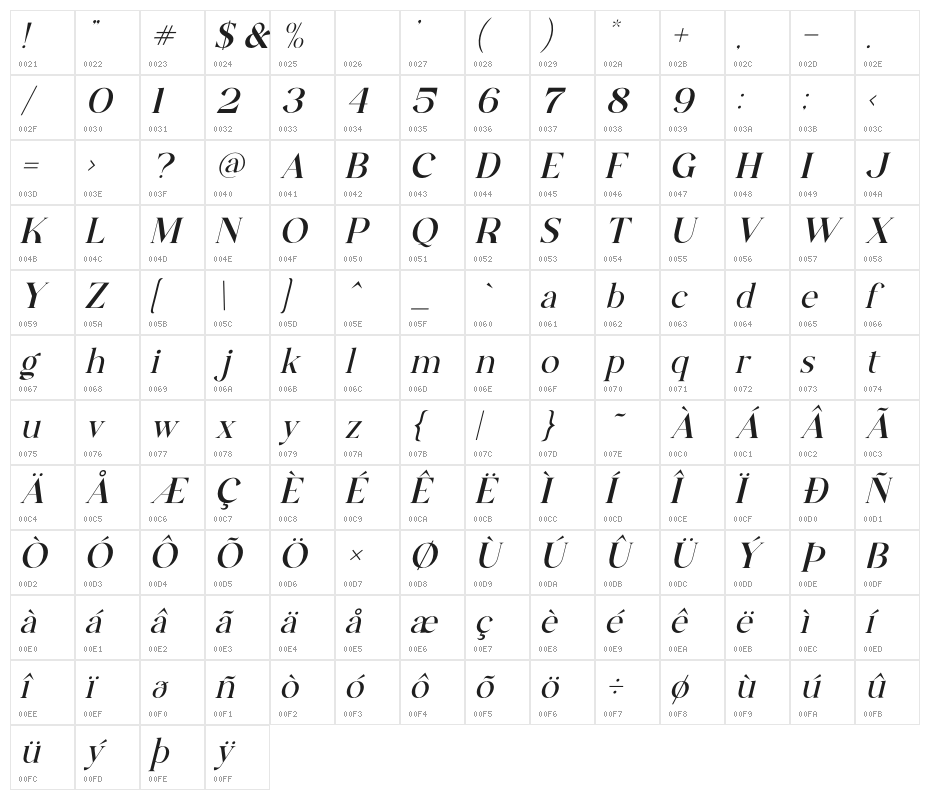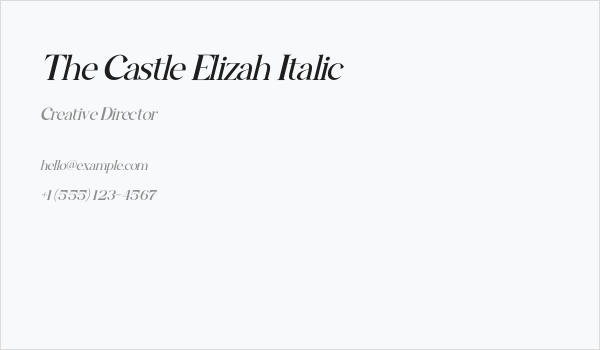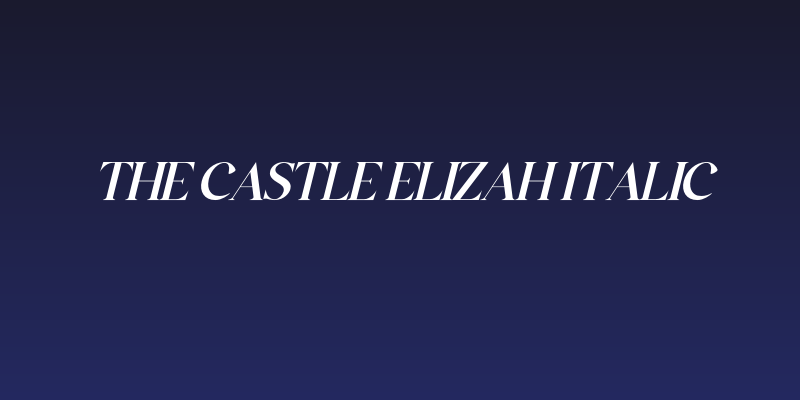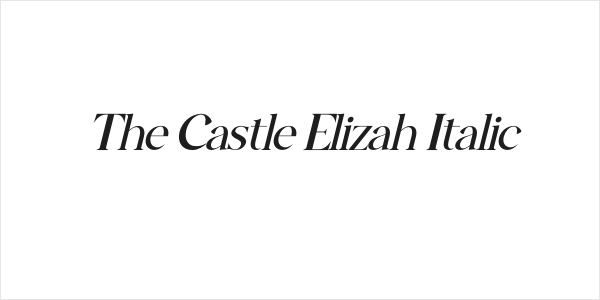
The Castle Elizah Italic Font
The Castle Elizah Italic Description
This elegant and sophisticated font features a classic italic style with a refined and graceful appearance. The characters are slightly slanted, giving a sense of motion and fluidity. The strokes are smooth and well-defined, with moderate contrast between thick and thin lines, creating a harmonious balance. The uppercase letters are tall and commanding, while the lowercase letters are more delicate and flowing. The numerals are clear and consistent, maintaining the overall aesthetic. Special characters are thoughtfully designed, complementing the font's elegant style.
| Proposed Projects | Ideal for luxury branding, wedding invitations, editorial design, and elegant packaging. |